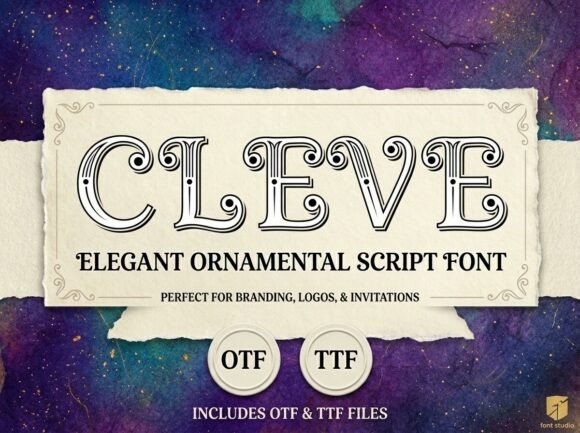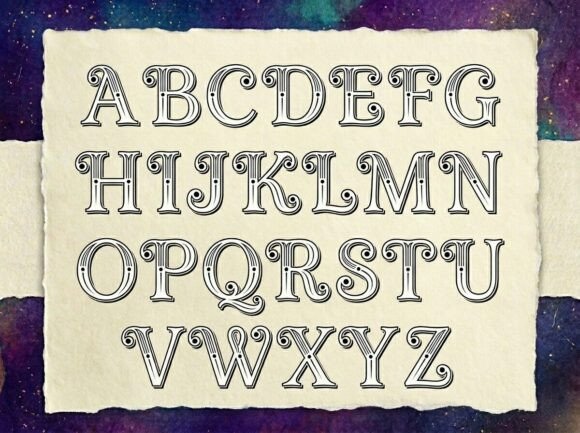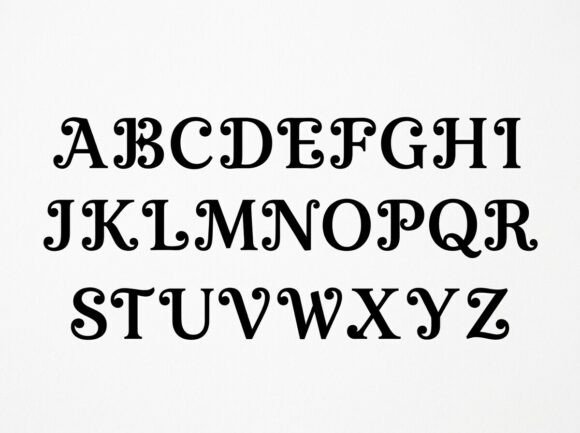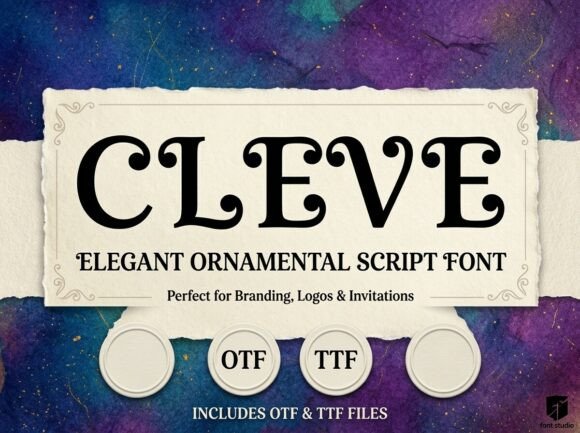
Elevate Your Visual Storytelling with Timeless Elegance
Have you ever been captivated by the intricate details of a vintage typewriter or the ornate lettering on a classic architectural façade? For designers seeking to evoke the same sense of timeless sophistication in their work, look no further than the Cleve Font.
This exquisite ornamental script font redefines the boundaries of vintage charm, marrying Victorian flair with modern precision to create a truly regal silhouette. With its high-contrast display structure and delicate inline detailing, Cleve Font is the perfect choice for premium branding, luxury invitations, and high-end editorial headers.
Whether you’re crafting a logo for an artisanal brand or designing a bespoke wedding suite, the Cleve Font delivers a sense of handcrafted artistic grace that’s sure to leave a lasting impression.
Cleve Font Key Features
Cleve Font Review
Cleve Font, designed by Alejandro Paul, is a beautiful script font with a vintage feel. It works well for titles, headings, and any text where you want to add a touch of elegance.
✨ I love how the font’s letterforms are carefully crafted to mimic the imperfections of traditional hand-lettering, giving it a unique and organic feel. The font’s flexibility in terms of style and size makes it a great choice for various design projects.
The font’s character set is comprehensive, covering a wide range of languages, and it includes various ligatures and swashes that can be used to add flair to your designs.
Here are some of the font’s key features:
- Comprehensive character set
- Support for multiple languages
- Various ligatures and swashes
- Flexibility in style and size
⚠️ One limitation of Cleve Font is that it may not be the best choice for body text, as it can be quite busy and may be difficult to read in smaller sizes.
Overall, I’m impressed with Cleve Font’s unique character and versatility. It’s a great addition to any designer’s toolkit, and I’d recommend it for projects where you want to add a touch of sophistication and elegance.
Tips for Getting the Most Out of Cleve Font
For optimal results, use Cleve Font in combination with a clean and minimal design aesthetic. Experiment with different font sizes, colors, and styles to create visual interest.
Cleve Font is suitable for:
- Business cards and letterheads.
- Brochures and flyers.
- Editorial and publishing designs.